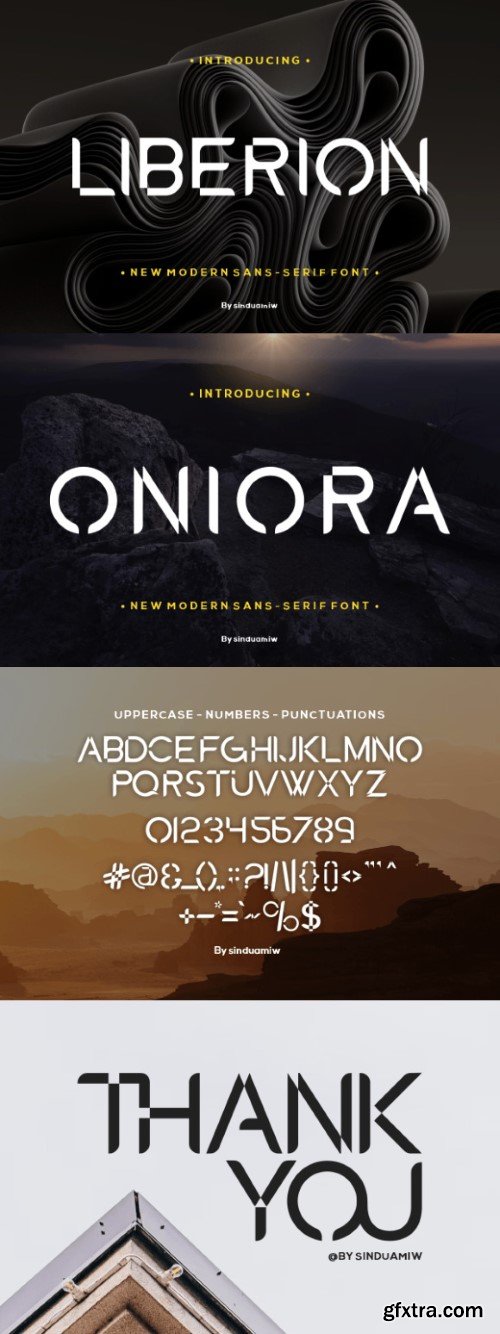
liberties font
Liberion is a bold and assertive sans serif font. No matter the topic, this font will be an incredible asset to your fonts' library, as it has the potential to elevate any creation.